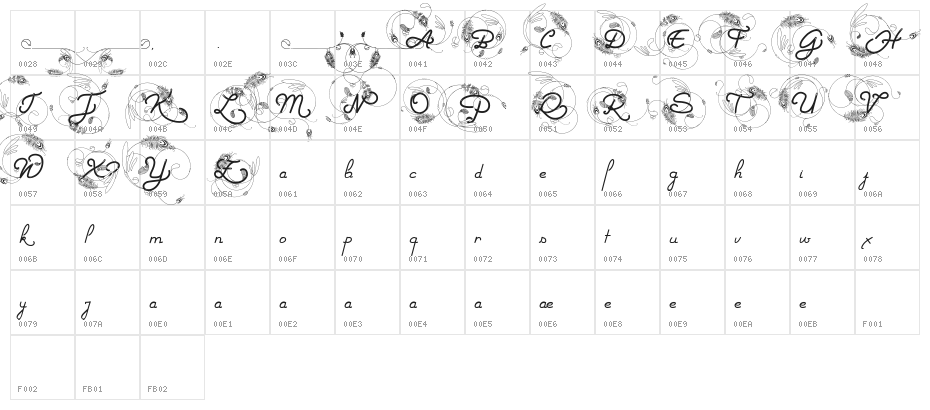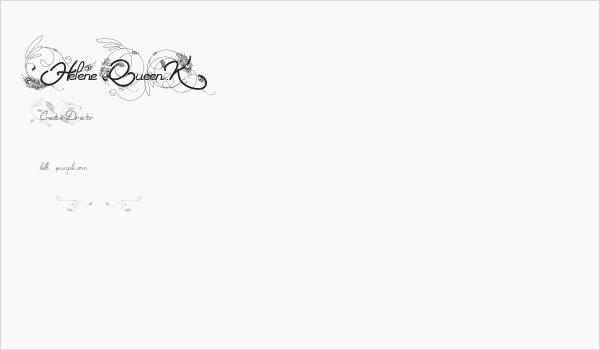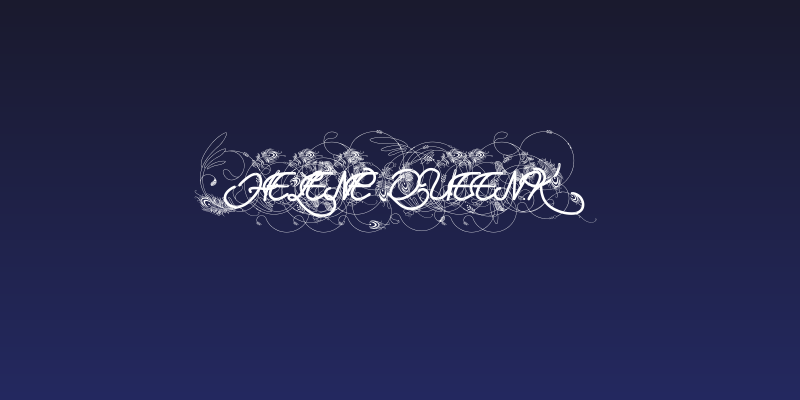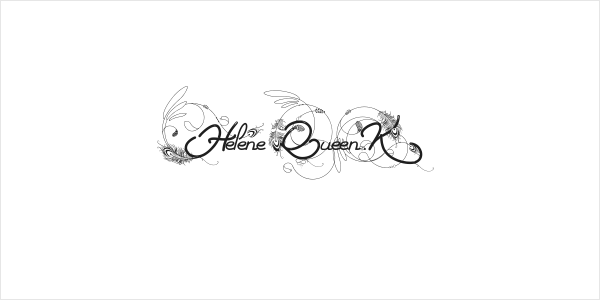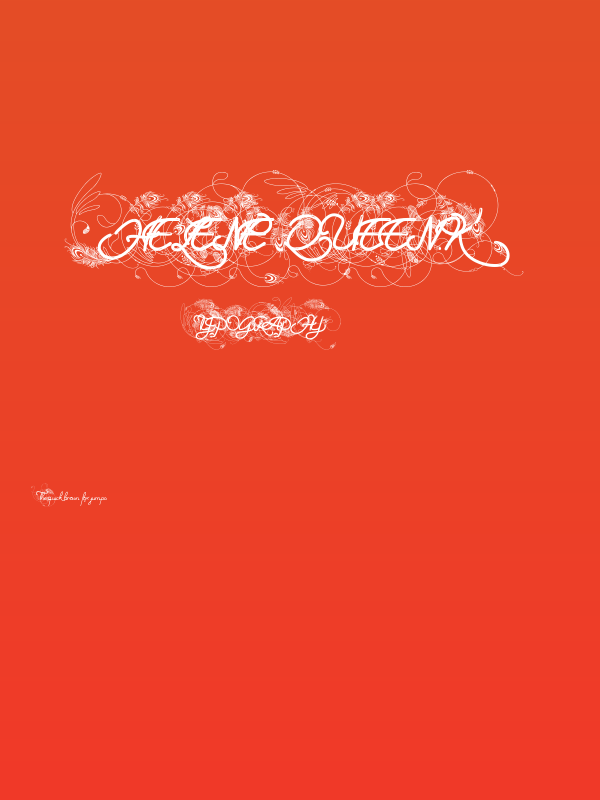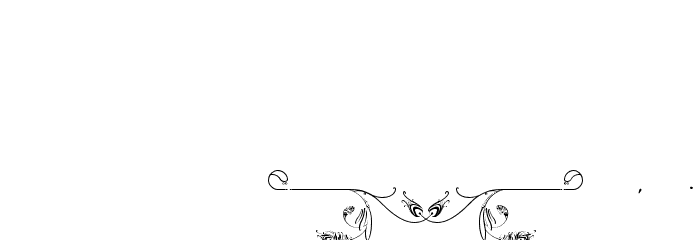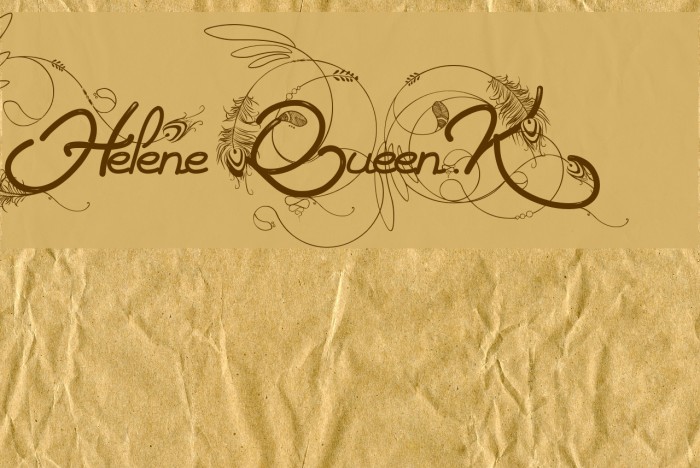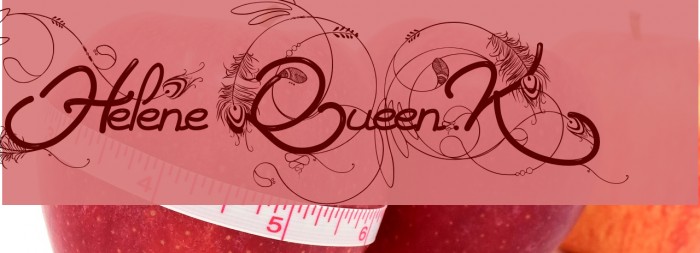
Helene Queen.K Font
Helene Queen.K Description
This font is an elaborate and decorative script with intricate flourishes and embellishments. The uppercase letters are highly ornate, featuring swirling lines and floral motifs that create a sense of elegance and sophistication. The lowercase letters maintain a cursive style, with elongated strokes and a graceful flow. This font is ideal for projects that require a touch of luxury and artistic flair. It is not suitable for body text due to its complexity but excels in creating impactful headlines or logos.
| Proposed Projects | Ideal for wedding invitations, luxury branding, artistic posters, and decorative headlines. |